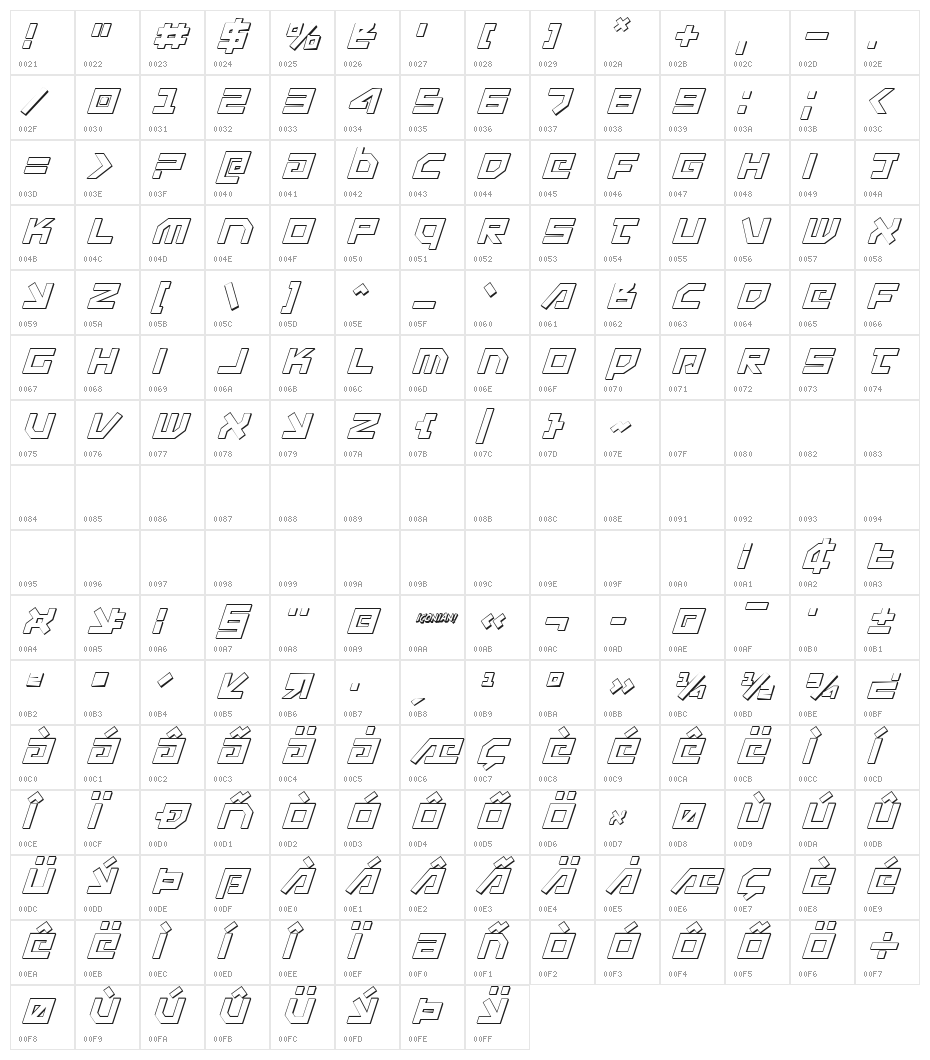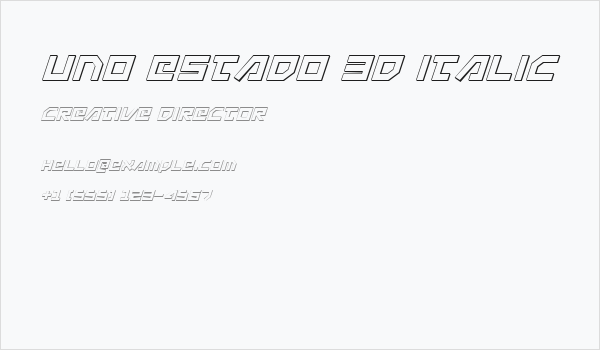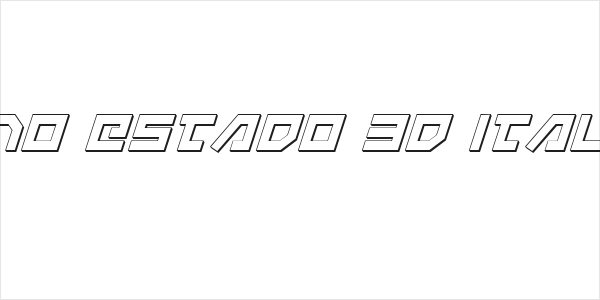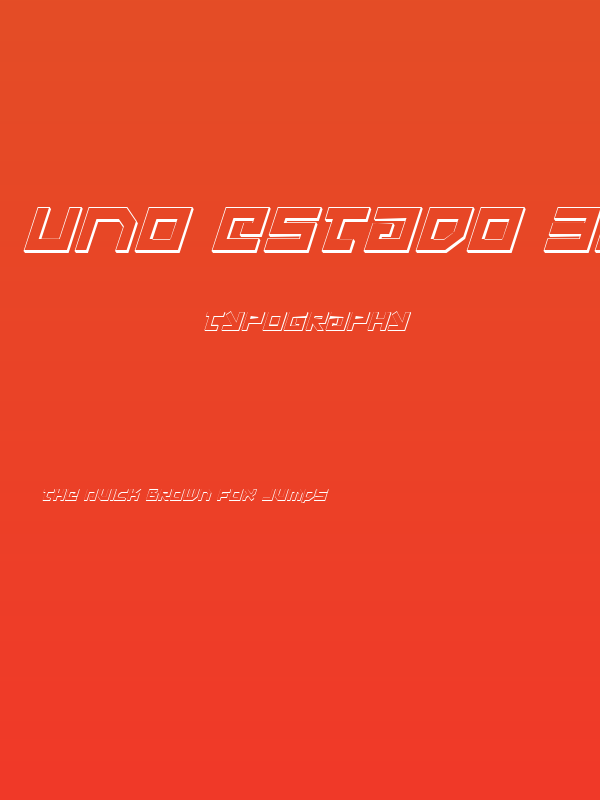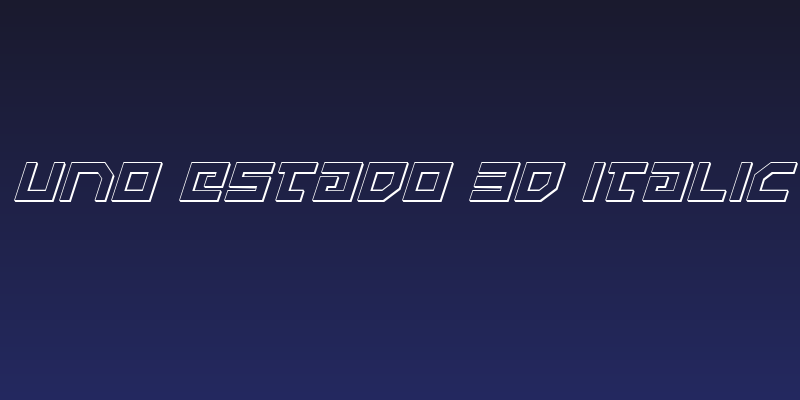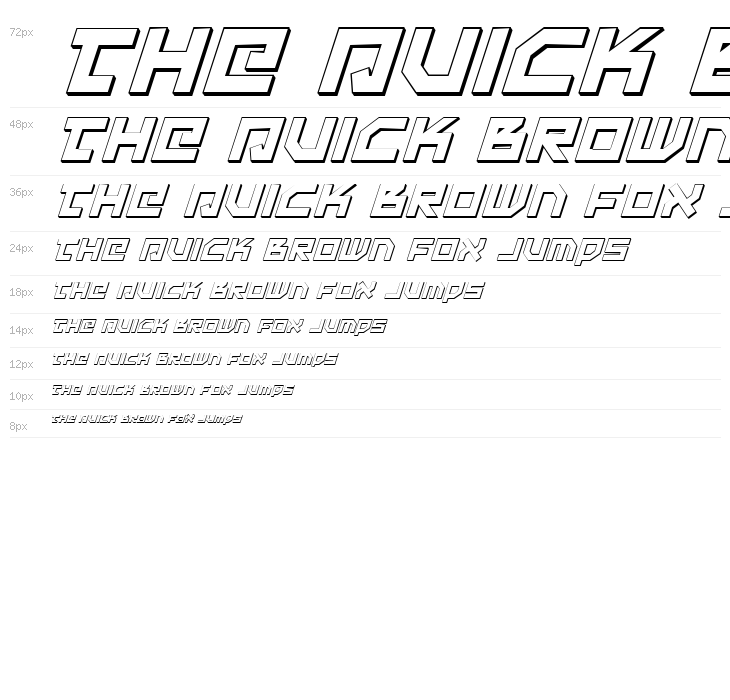
Uno Estado 3D Italic Font
Uno Estado 3D Italic Description
This font features a bold, three-dimensional design with a futuristic and geometric aesthetic. The characters are outlined, giving them a hollow appearance that enhances the 3D effect. The angular and sharp edges contribute to a modern and dynamic look, making it stand out in any design. The uppercase and lowercase letters maintain a consistent style, with a slight slant that adds to the italicized appearance. Numbers and special characters are designed with the same attention to detail, ensuring uniformity across all elements. This font is ideal for projects that require a strong visual impact and a contemporary feel.
| Proposed Projects | Ideal for video game titles, tech branding, futuristic posters, and digital artwork. |